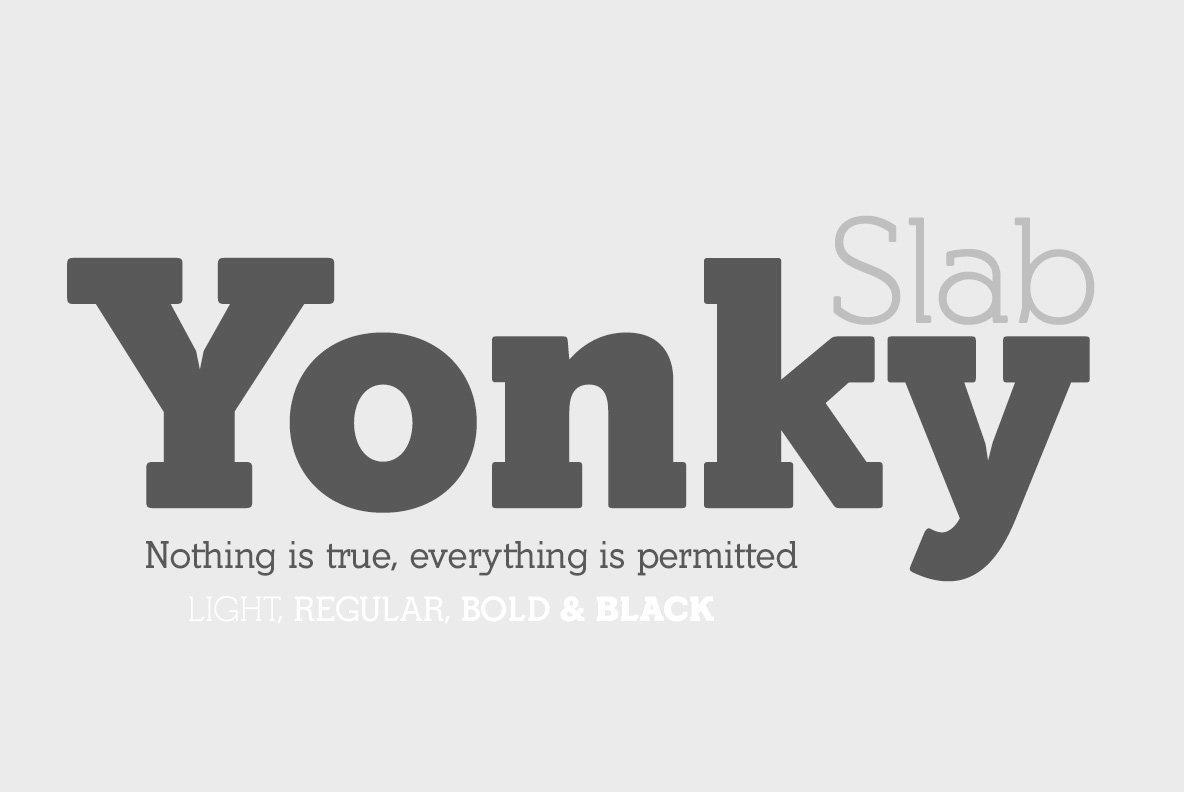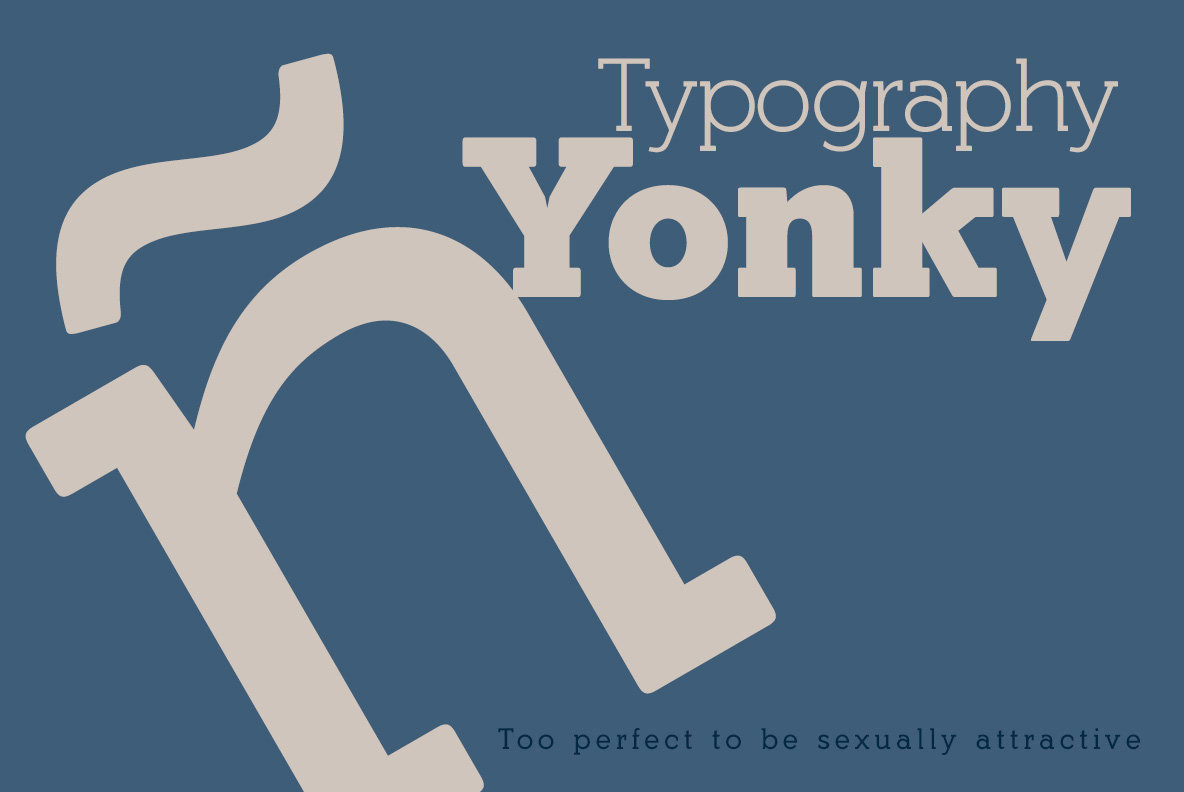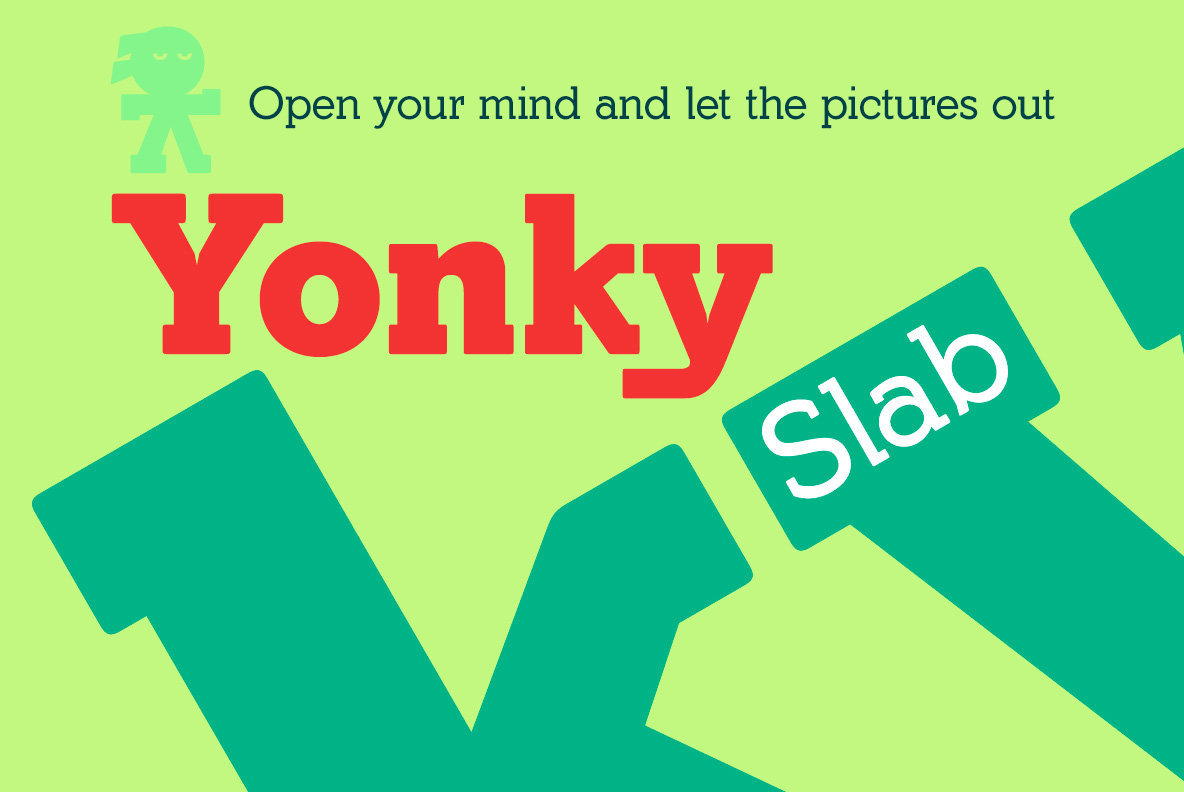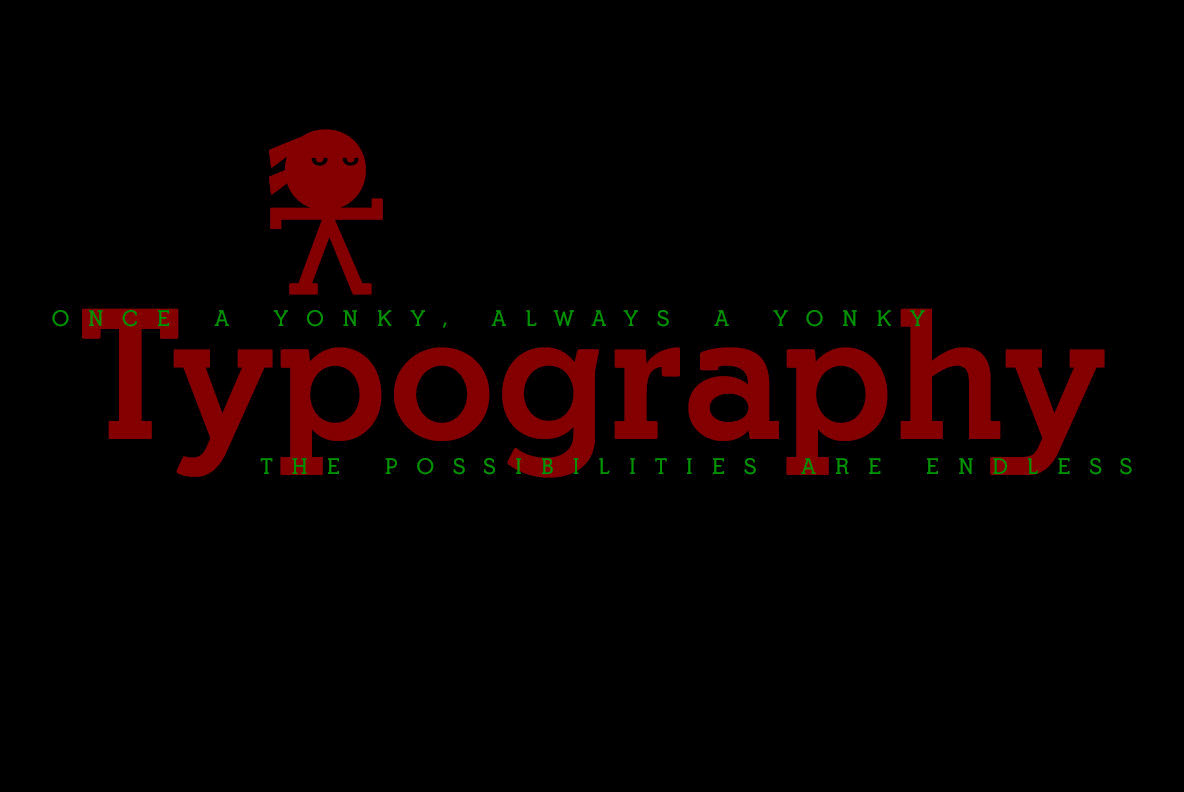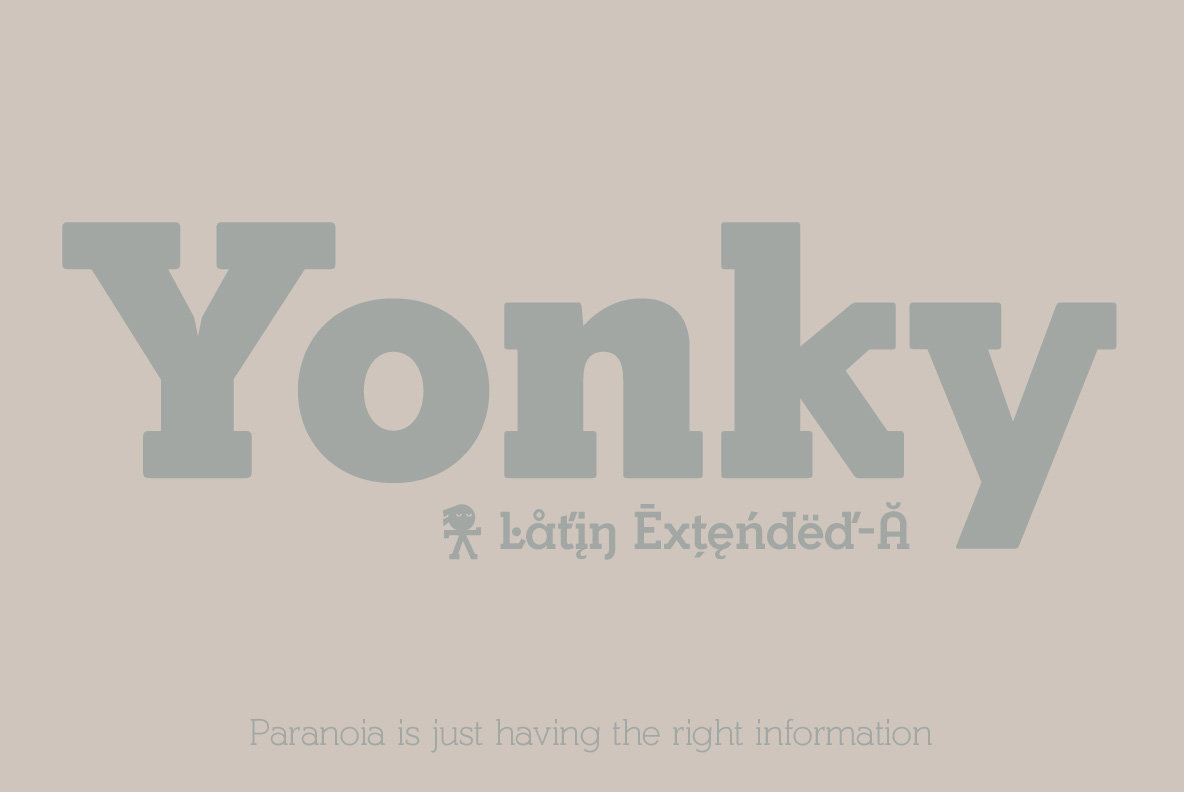
Yonky Slab Font
Embrace the versatility of Yonky Slab, a family of eight neo-grotesque typefaces that span four distinct weights: Light, Regular, Bold, and Black, each accompanied by true italics. As successors to the Egyptian typographic style that originated in the early 19th century, these typefaces blend contemporary design with historical influences. Yonky Slab offers a robust typographic toolset, refined for creativity and precision in digital design endeavors. Its OpenType capabilities, such as Standard Ligatures and Discretionary Ligatures, enhance functionality, making it a steadfast choice for any design professional seeking a nuanced yet effective font family.Yonky Slab: Neo-Grotesque Typefaces with Historical Touch